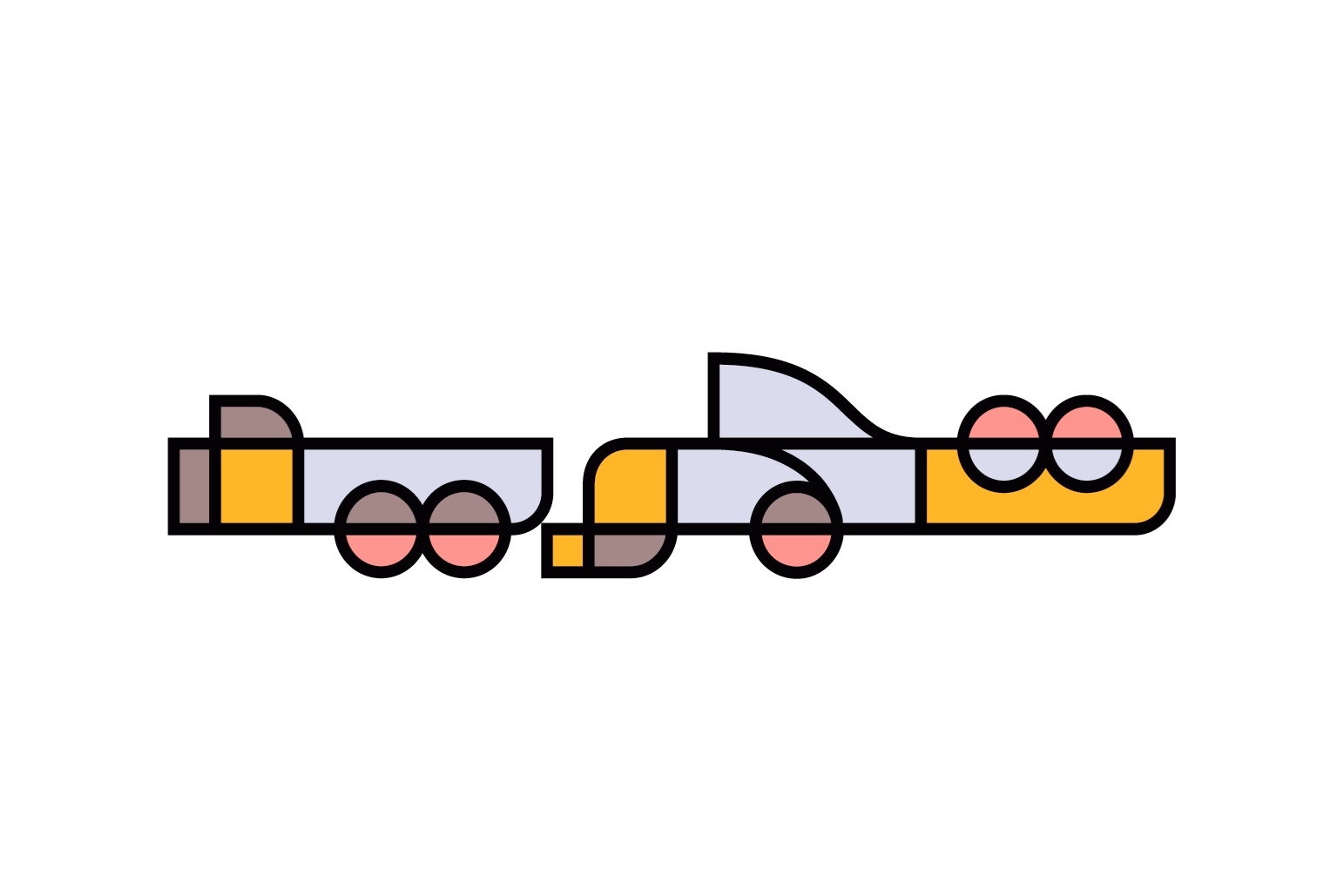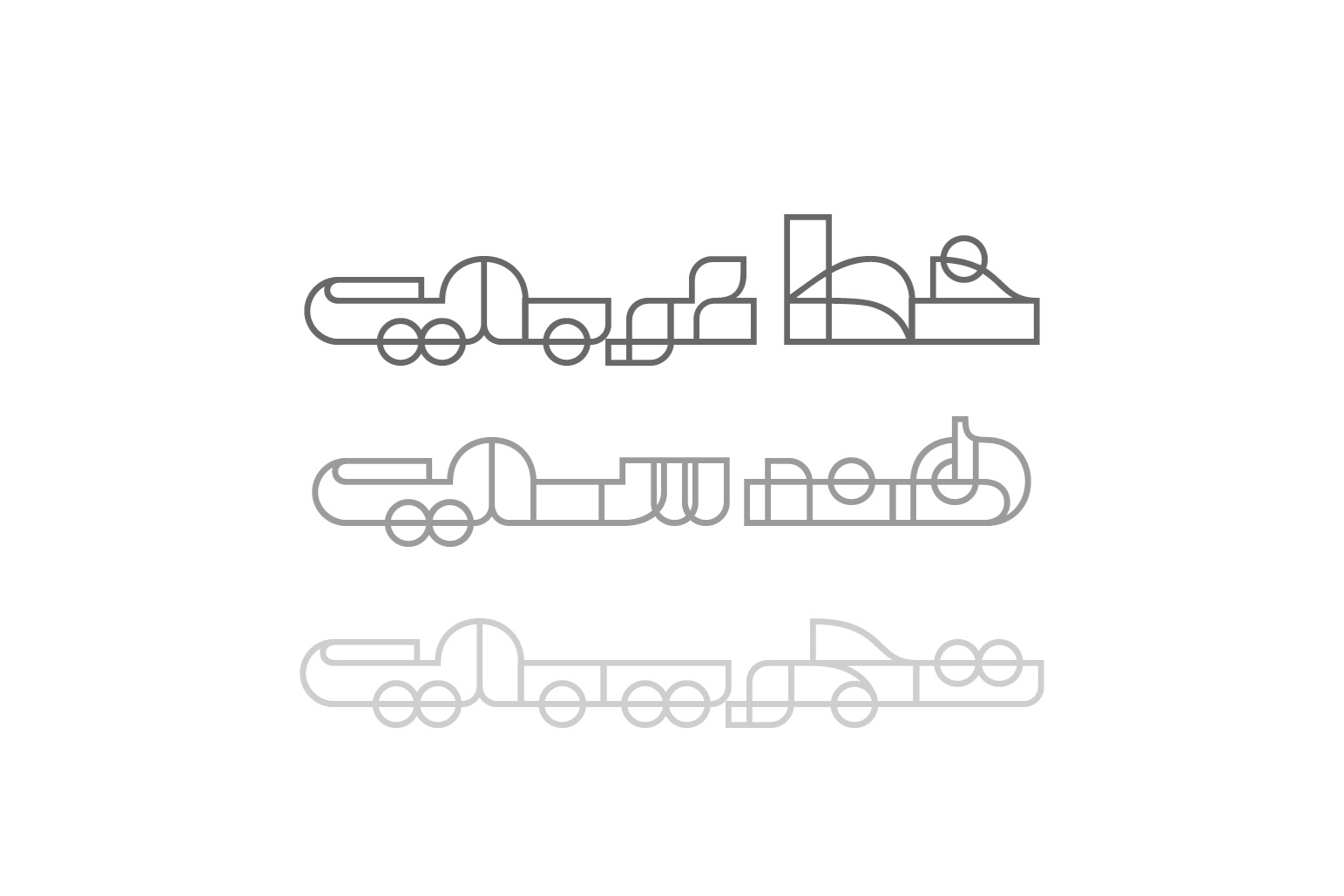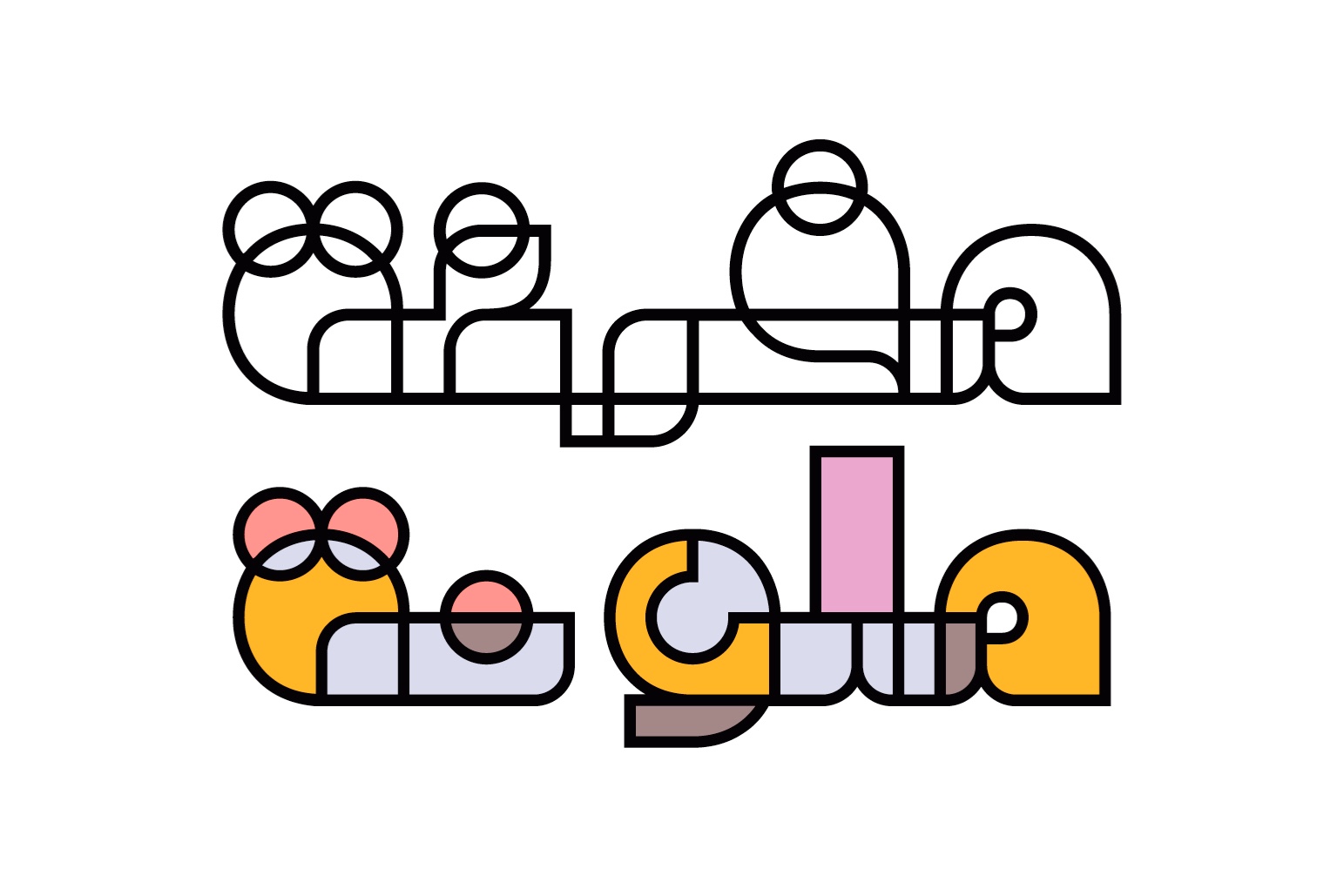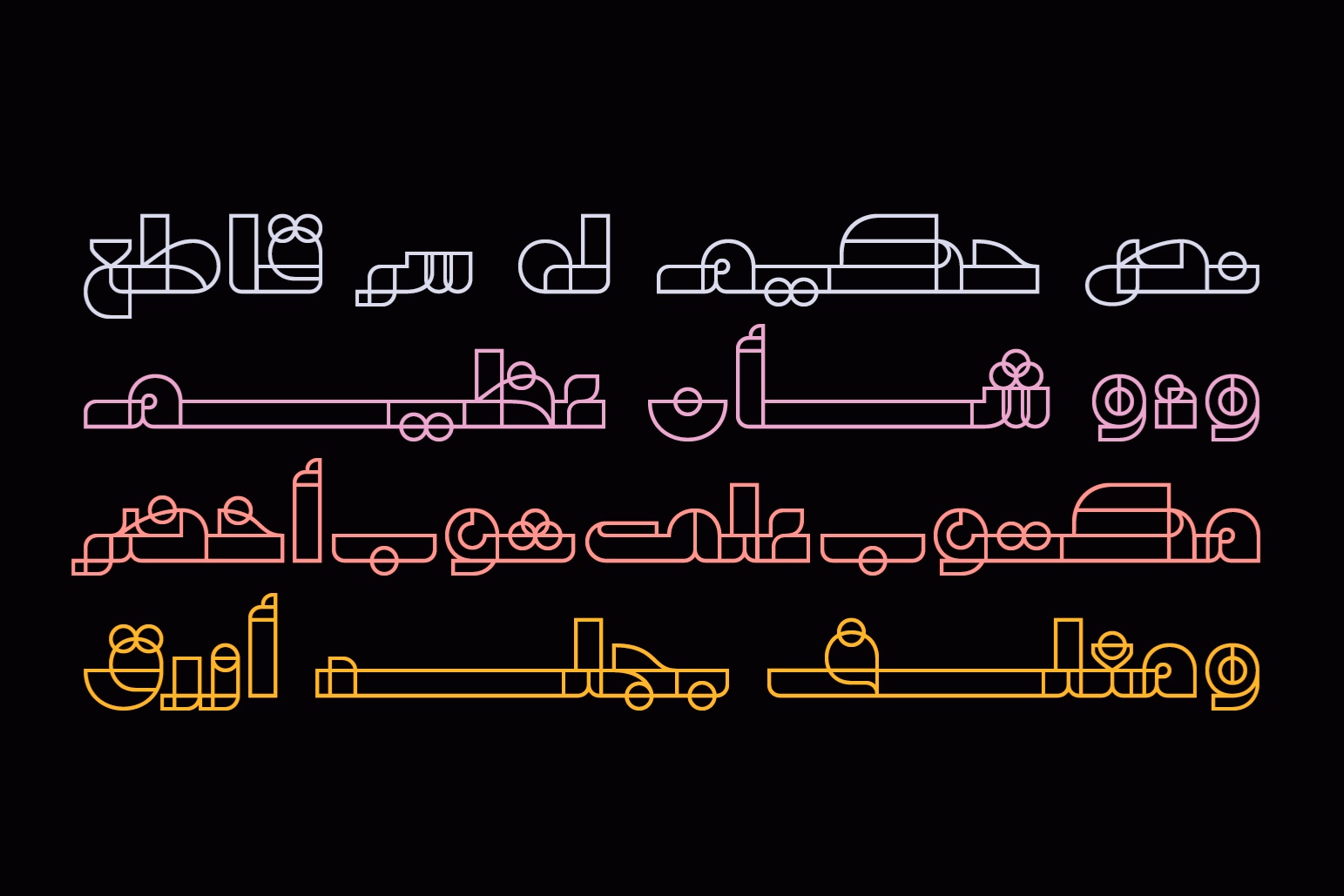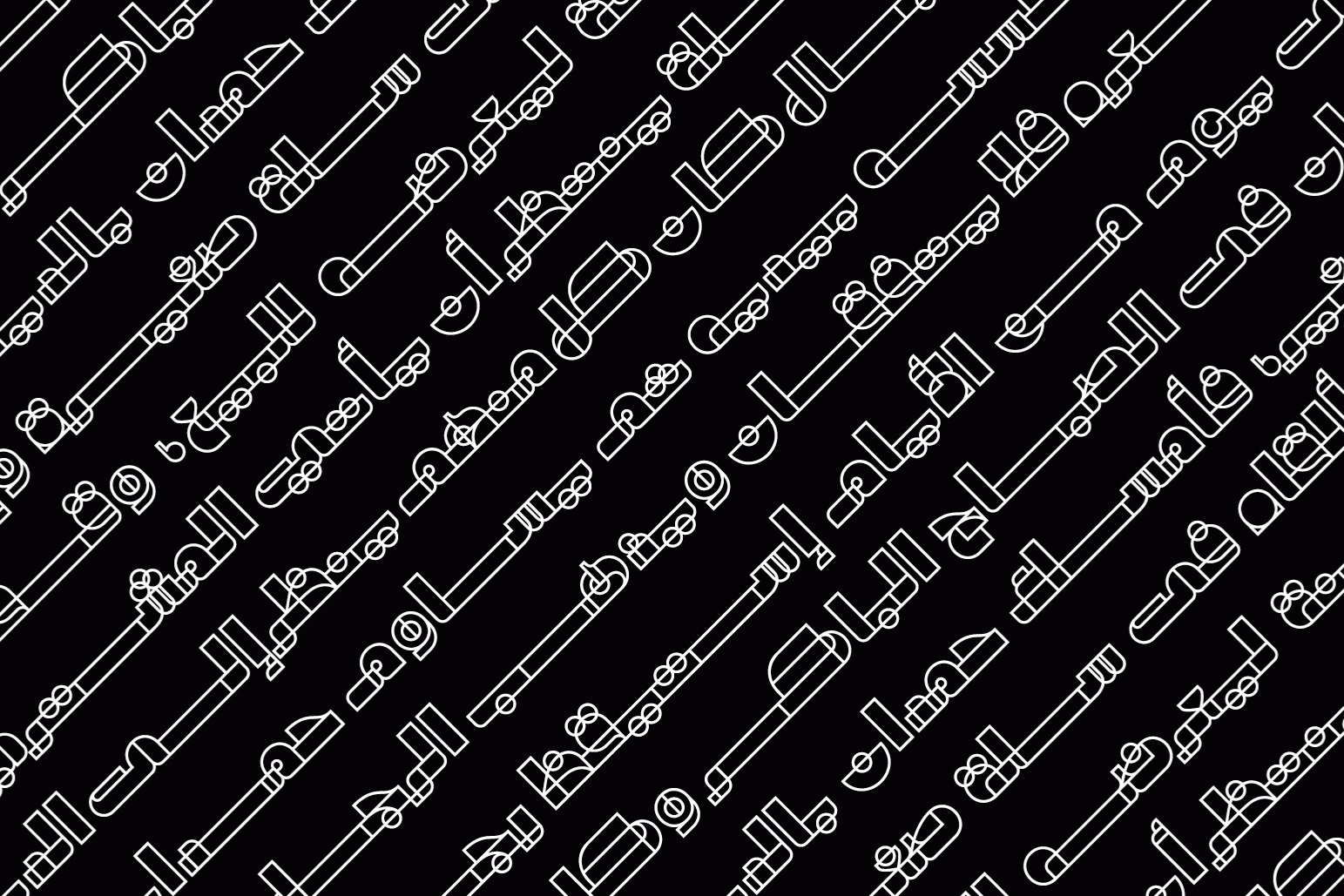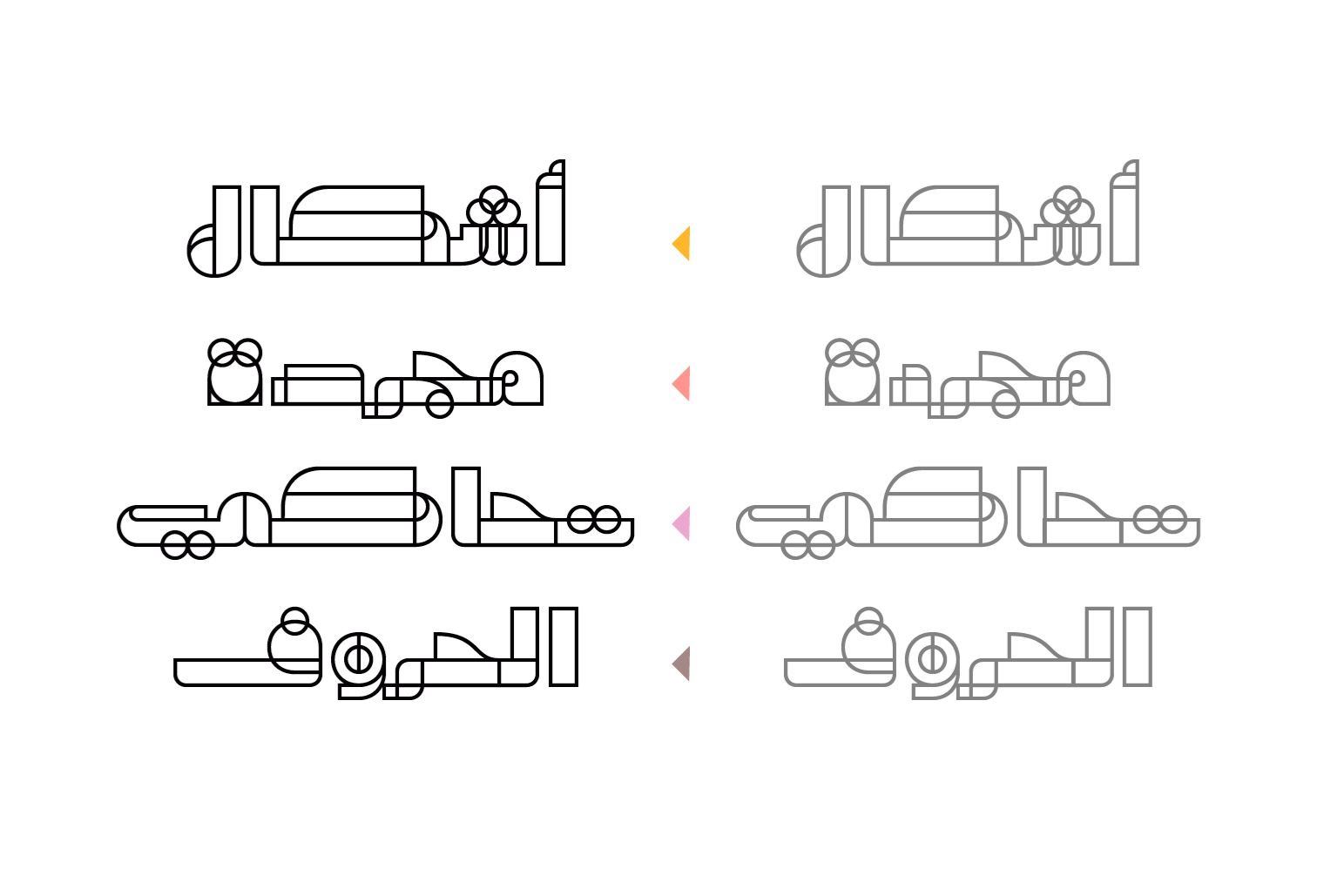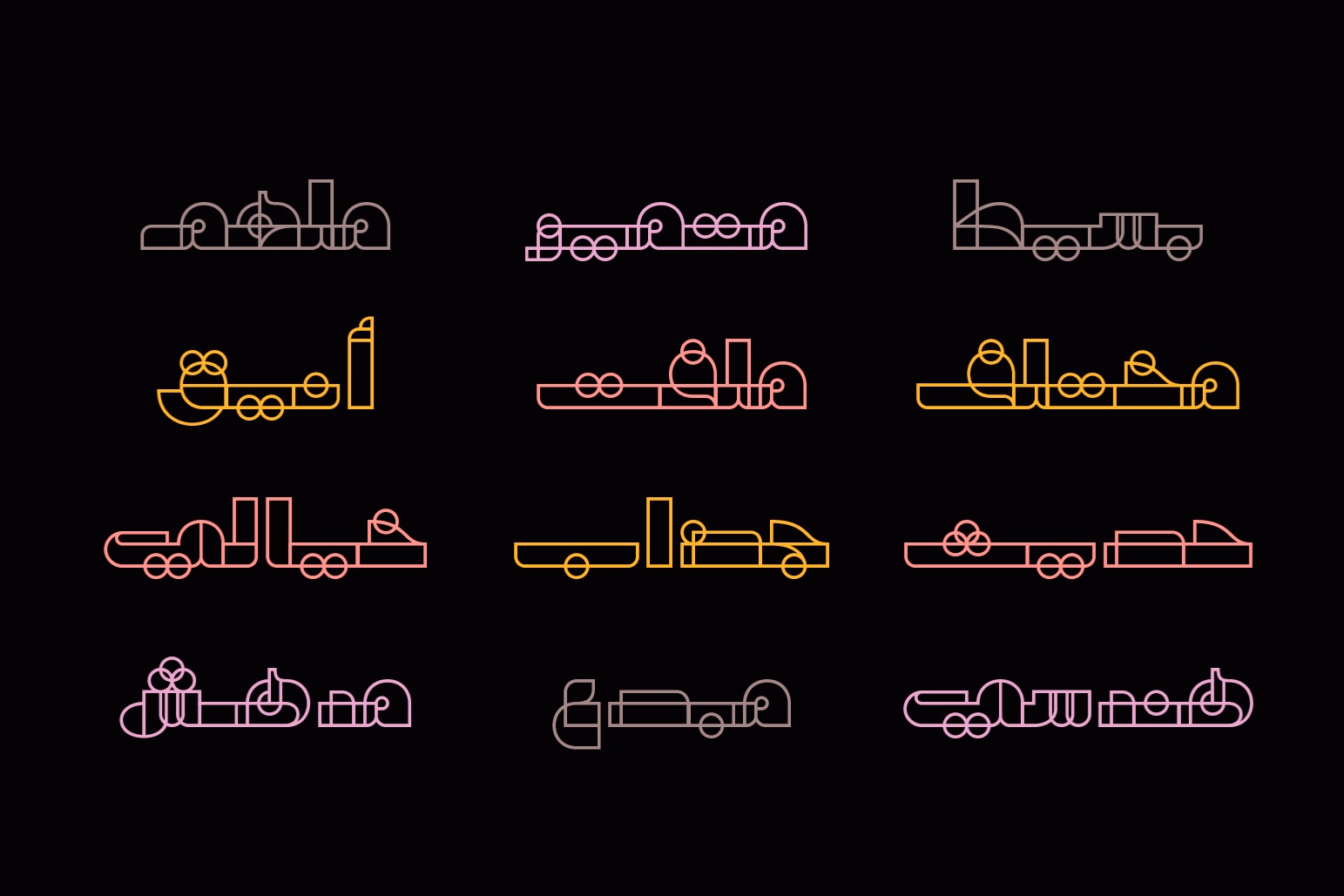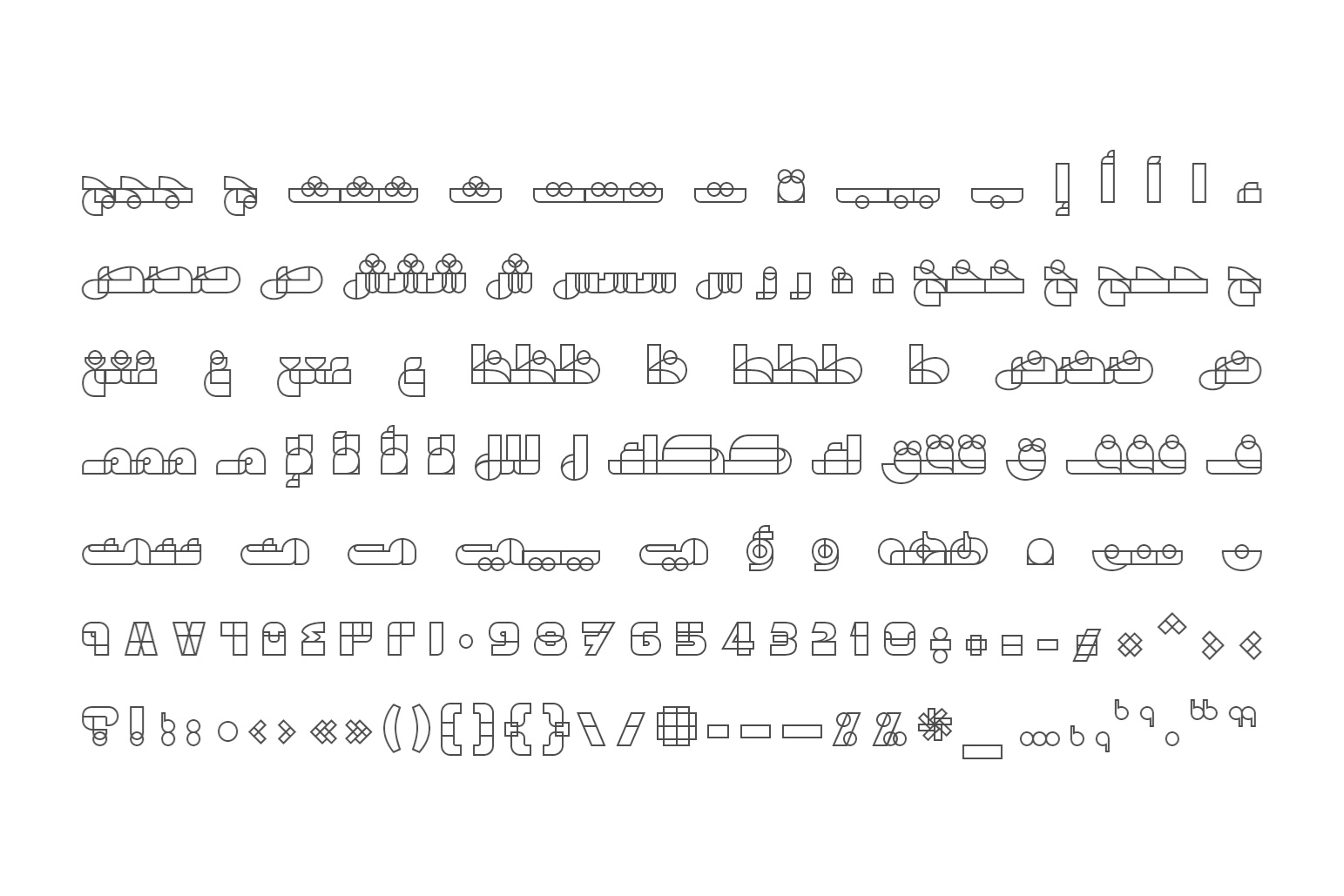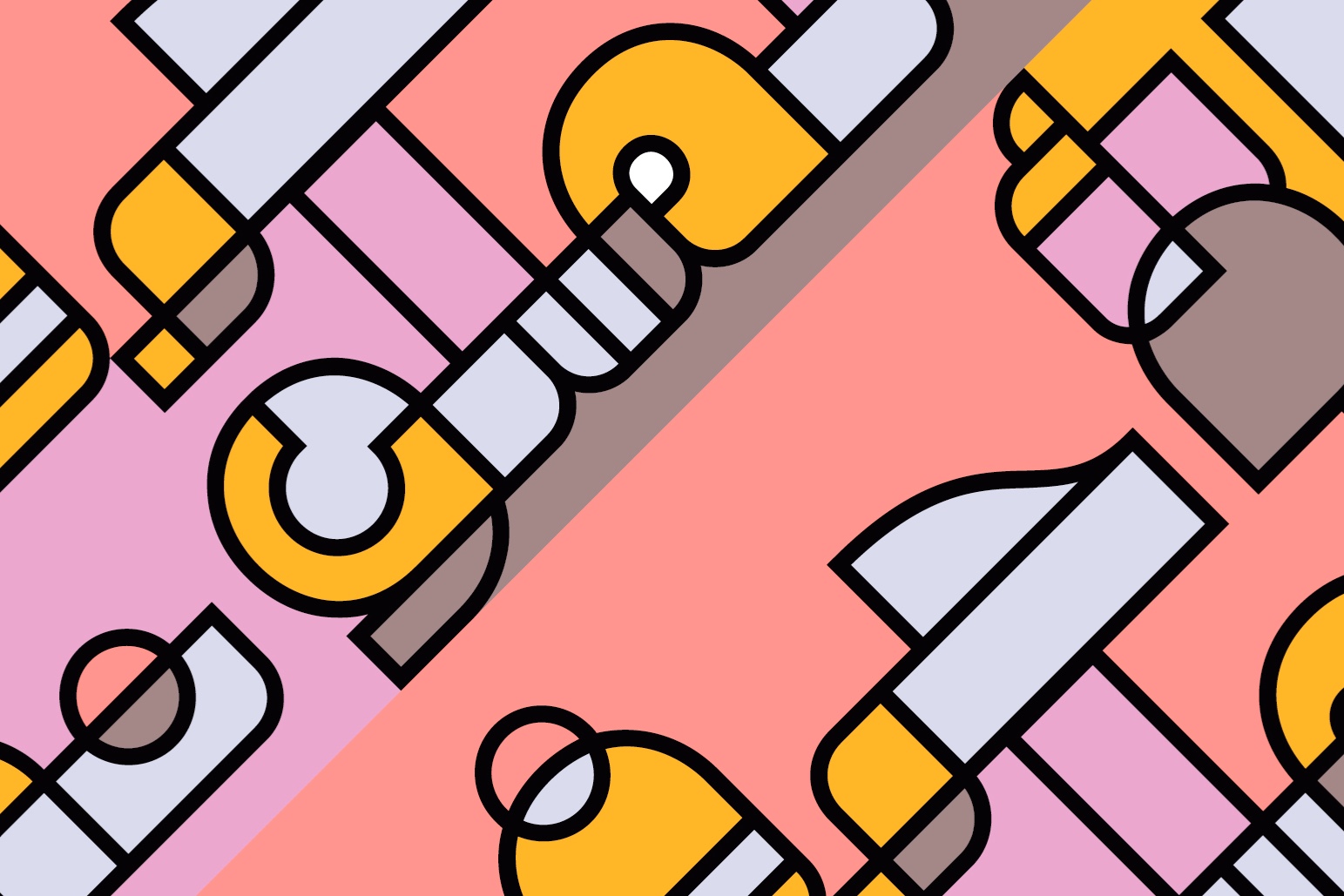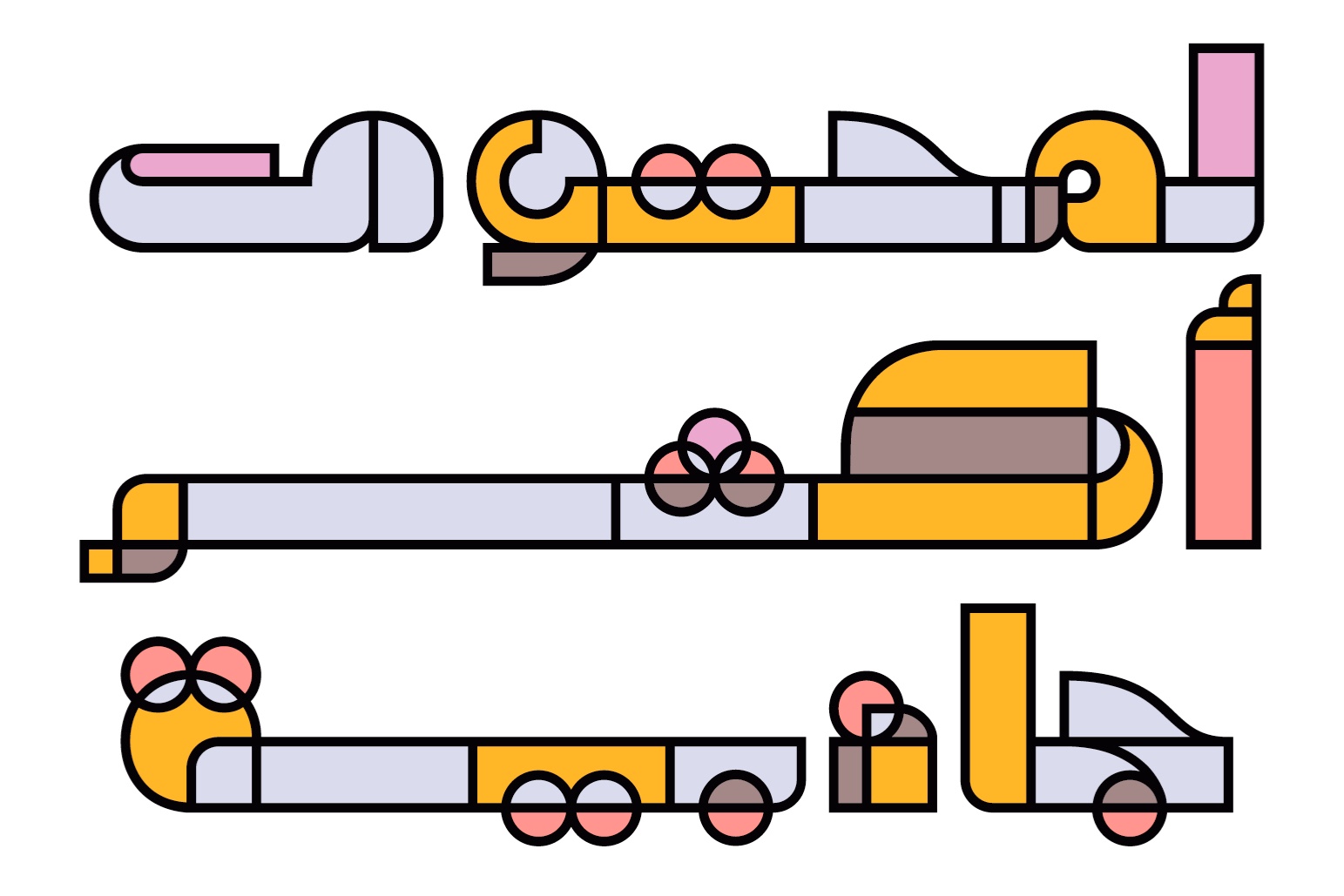
Tajreed is an Arabic display font that is inspired by the Abstract art. The word Tajreed is the Arabic for Abstract. The font features a stylistic set In addition to a multicolored twin that expands its applications by bringing a unique color palette to the typing experience. Tajreed suits both print and web design.
Regular and Multicolor